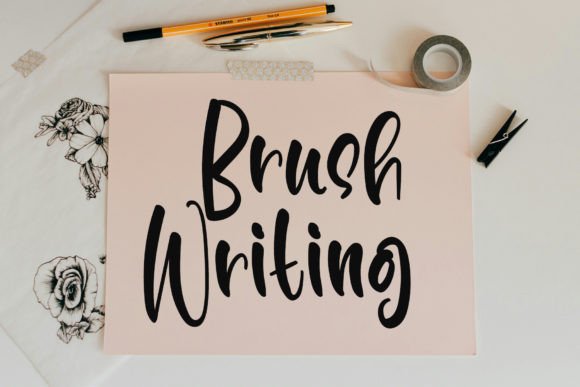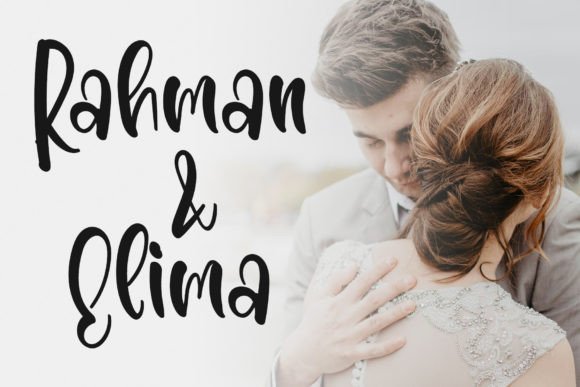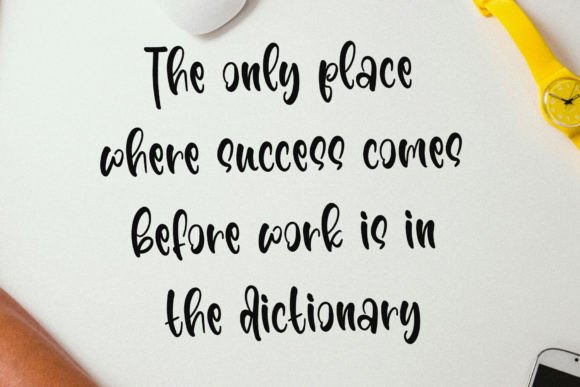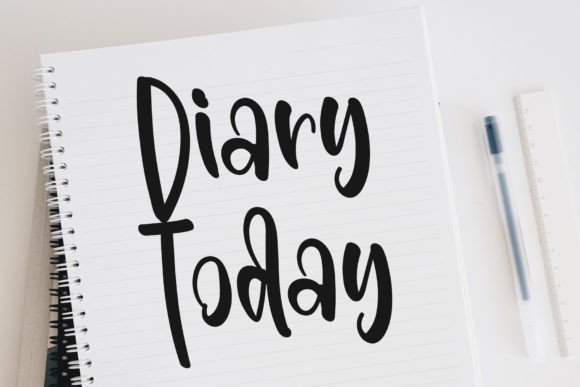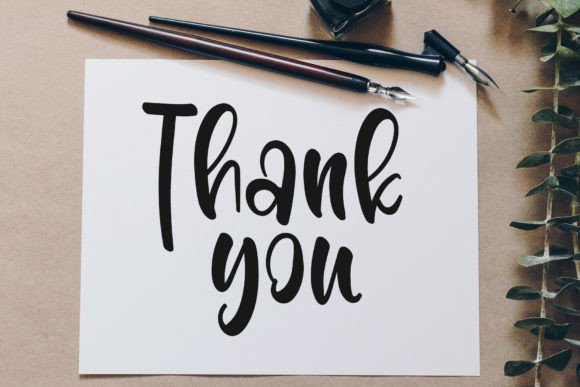
Introduction to Random Memorial Font
Have you ever found yourself in a moment of pure creative bliss, where the perfect font choice seems to unlock the entire design? It’s a feeling that’s hard to replicate, but one that can make all the difference in bringing your project to life. For designers, the right font can be the secret ingredient that elevates a design from good to great.
That’s where the Random Memorial Font comes in – a fun and quirky display font that’s sure to add a touch of whimsy to your next creative project. With its high-quality design and wide range of glyphs and ligatures, this font is a valuable resource for designers looking to add some personality to their work.
Key Features of Random Memorial Font
- High-quality design resource with a unique, creative touch, perfect for personal or commercial projects.
- Perfect for creative projects, such as memorial websites, obituaries, and other tributes, where a unique and thoughtful design is essential.
Honest Review: Random Memorial Font
I recently stumbled upon the Random Memorial Font, and I must say it’s a hidden gem in the design world. This font is perfect for anyone working on a creative project that requires a touch of elegance and sophistication.
- ✨ The font has a high quality, professional look that’s suitable for various design projects.
- ⚠️ The font might not be suitable for projects that require a more modern or bold look.
- ⚠️ The font family is relatively small, which might limit its versatility in certain design applications.
Overall, I’m impressed with the Random Memorial Font. It’s a great addition to any designer’s toolkit, and its high quality and versatility make it an excellent choice for a wide range of creative projects.
The Random Memorial Font is a high-quality design resource perfect for adding a personal touch to your creative project. With its transparent background, you can easily overlay it onto any image or background.
For the most effective use of the Random Memorial Font, try experimenting with different font sizes, colors, and placements. You can also use the font in combination with other design elements to create a unique and memorable design.
The Random Memorial Font is perfect for creating memorial cards, funeral programs, and other sympathy designs. You can also use it to add a personal touch to wedding invitations, baby showers, or other special occasions.